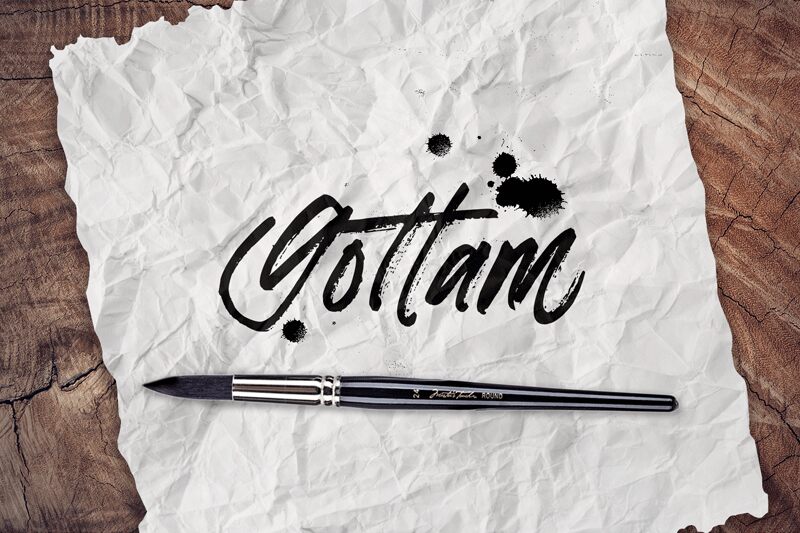
Gottam font family by Kong Font is a free brush font duo defined by an expressive energy that reflects poetic freedom. This modern handwritten type with stylistic imperfections mimics brush movements, without losing its artistically asymmetrical character. Create a smooth flow with the uneven shapes it offers, and connect some letters whenever possible to achieve a personal touch.
Straightforward and inviting, this casual brush font is well suited for posters that present concerts for rock and pop bands, artists, or even street dancers. Use it to decorate book covers, brochures, and magazines that present artwork.